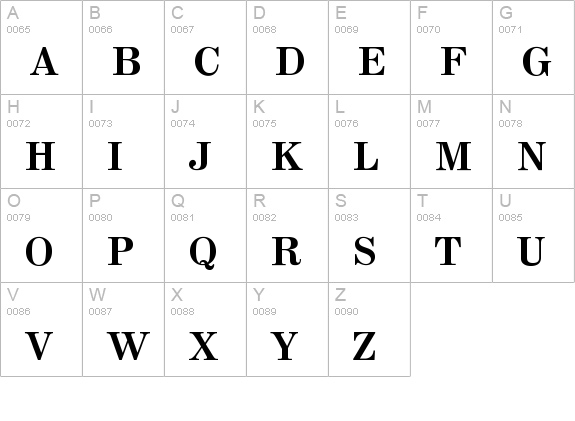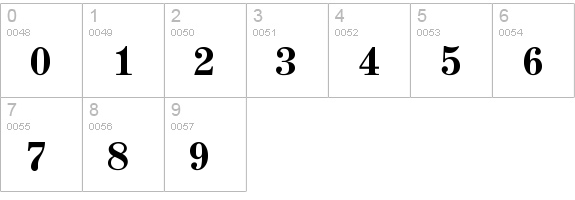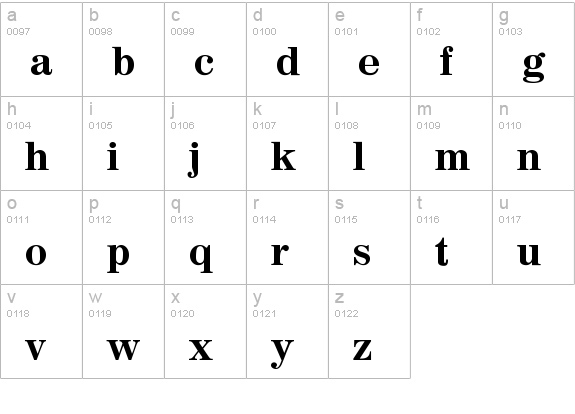
Madison Medium Font Details
Madison Medium is a balanced, medium-weight variant in the Madison typeface family \xE2\x80\x94 well suited to sub-headlines, navigation, and balanced editorial work.
Madison Medium font is a versatile and modern typeface that exudes elegance and sophistication. With its clean lines and balanced proportions, this font is perfect for a wide range of design projects, from branding and advertising to headlines and body text. The Madison Medium font strikes the perfect balance between classic and contemporary, making it suitable for both traditional and modern designs. Its medium weight gives it a sense of stability and confidence, while its subtle details and unique letterforms add personality and character. One of the best things about Madison Medium font is that it is free. Yes, you read that right! You can download this incredible font for free at FontsMarket.com. With just a few clicks, you can have access to this premium-quality typeface without spending a dime. Whether you are a professional designer or a hobbyist, Madison Medium font is a must-have in your font collection. Its versatility and timeless appeal make it a go-to choice for any design project. So why wait? Head over to FontsMarket.com and download Madison Medium font for free today!